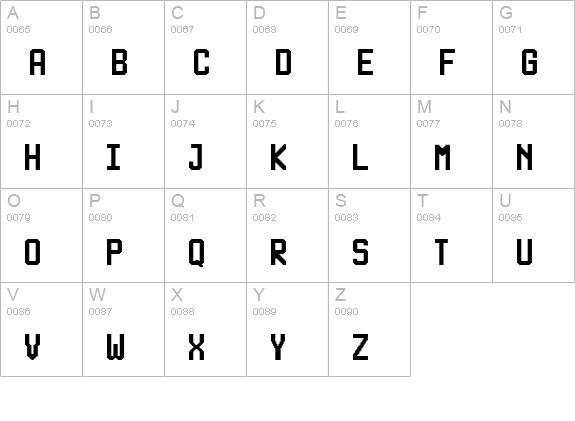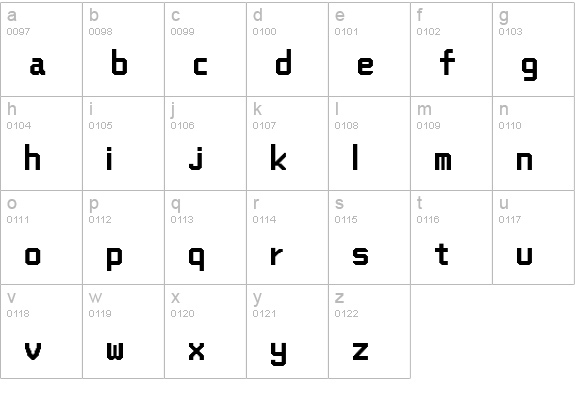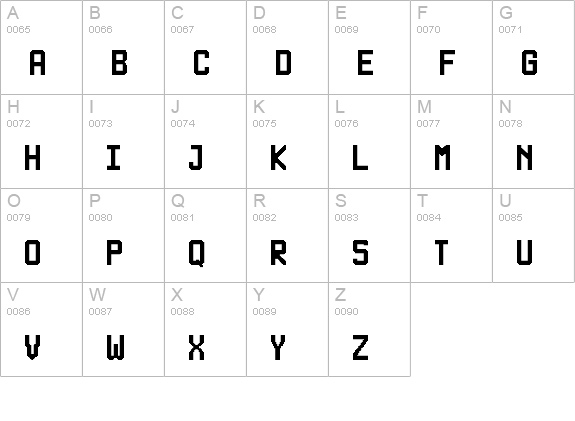
1st Sortie Font Details
Introducing the exquisite 1st Sortie font, a modern and elegant typeface that exudes sophistication and charm. With its sleek lines and stylish curves, this font is perfect for adding a touch of class to any design project. Whether you're creating a logo, website, or invitation, 1st Sortie is sure to make a lasting impression. Best of all, 1st Sortie is available for free download at FontsMarket.com. That's right - you can enhance your creations with this stunning font without spending a dime. Don't miss out on the opportunity to elevate your designs with the beauty and versatility of 1st Sortie. Download it today and let your creativity soar!